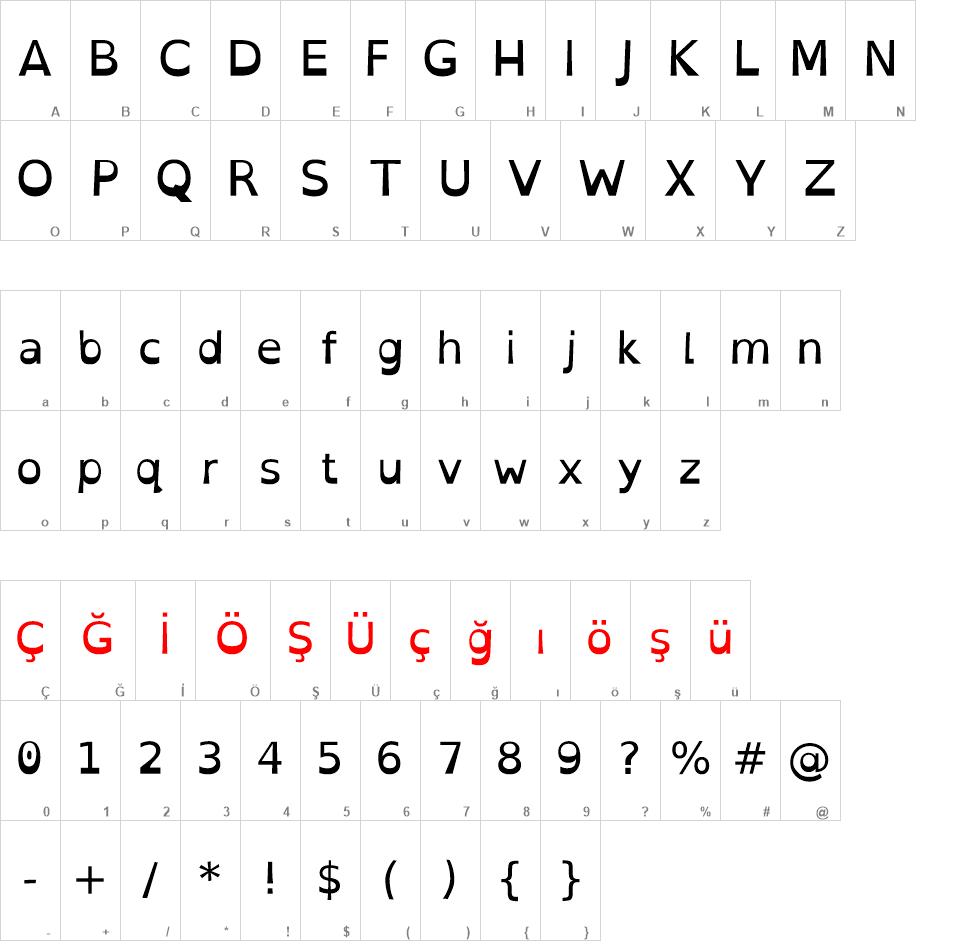
Dyslexia Font Free Download. Fontsplace is the best place to download dyslexia for free. Dyslexia fonts help people with this disability to read text easier and more clearly.
It is absolutely free to download, however there is an option to donate. What fonts are best for dyslexic readers affects the overall readability of texts and there for speed, accuracy and potentially persistence […] Even better is getting a font designed for dyslexics.
Font created to help dyslexic readers. The chrome extension is free for download in the chrome store.you can adjust the font on almost every website so you can read the internet in. Free download of open dyslexic font family with 4 styles.
Opendyslexic Is An Open Source Font Intended To Increase Legibility And Readability For People With Dyslexia.
Arial Is One Of The Most Widely Used Fonts On The Web, And For Good Reason.
Even better is getting a font designed for dyslexics. Download opendyslexic2 from dafont.com (click 'download' on the right side of the screen.) check the dafont faq for more details on installing. Bottom heavy and unique character shapes help make it more difficult to confuse letters.
The creators update and improve it regularly, using feedback from dyslexic users. There are a few options, and you can download these free fonts to use in microsoft word or pages. Opendyslexic is a typeface designed against some common symptoms of dyslexia.
Dyslexia Is A Font, Manufactured By Designed By Elliott Peter Earls.
Second, it’s clear and easy to read. Christian boer has even received several international awards. What fonts are best for dyslexic readers affects the overall readability of texts and there for speed, accuracy and potentially persistence […]